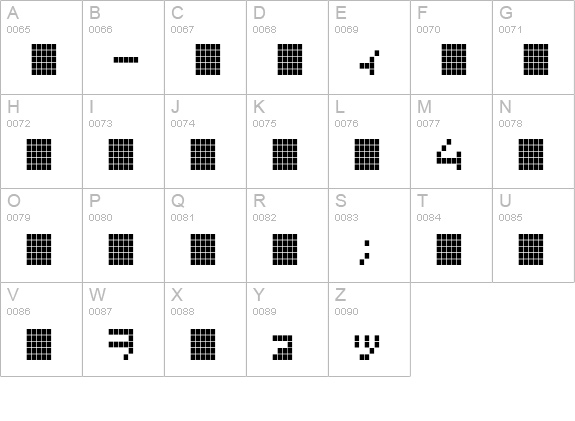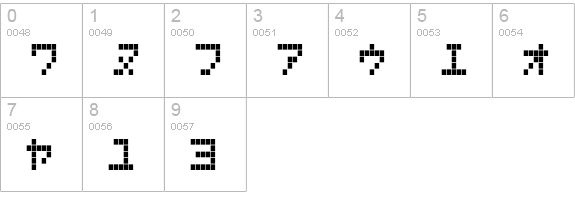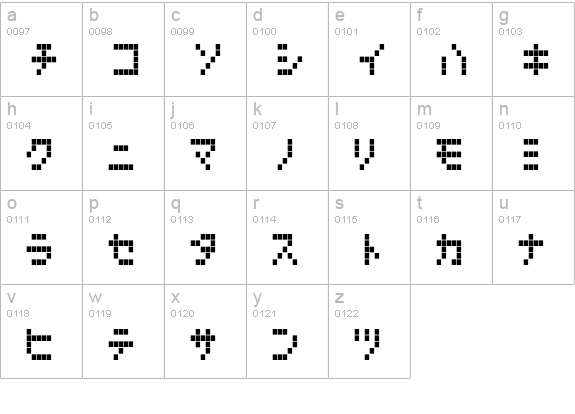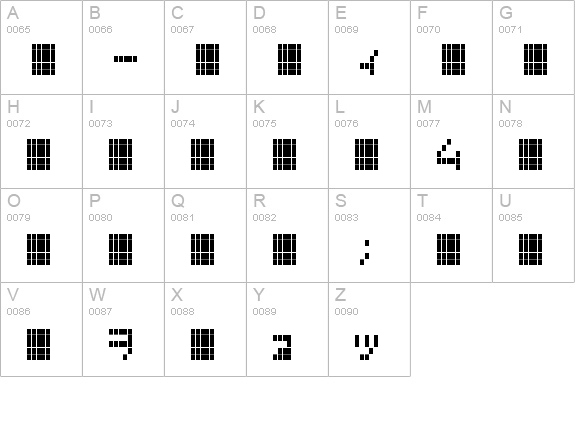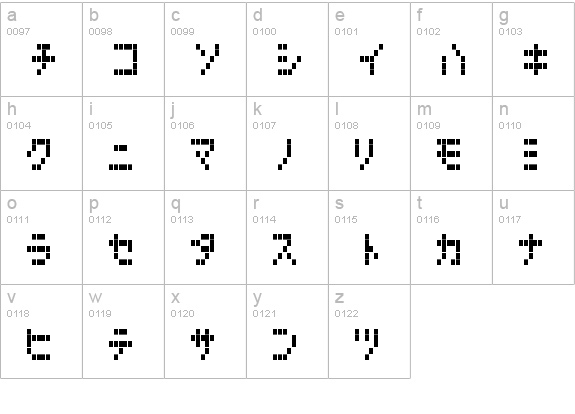
DotplLCD-KANA Font Details
DotplLCD-KANA is a modern and stylish font that combines the beauty of traditional Japanese characters with a contemporary digital twist. The unique dot matrix design creates a futuristic and streamlined look that is perfect for a wide range of design projects. This font is versatile and can be used for both display purposes and body text, making it a must-have for any designer looking to add a touch of sophistication to their work. What makes DotplLCD-KANA even more appealing is the fact that it is completely free to download. You can easily access this font at FontsMarket.com and start using it in your projects right away. With its clean lines and sleek aesthetic, DotplLCD-KANA is sure to make a bold statement and elevate the overall visual appeal of your designs. Don't miss out on this fantastic opportunity to enhance your creative projects with this stunning font - download DotplLCD-KANA today!